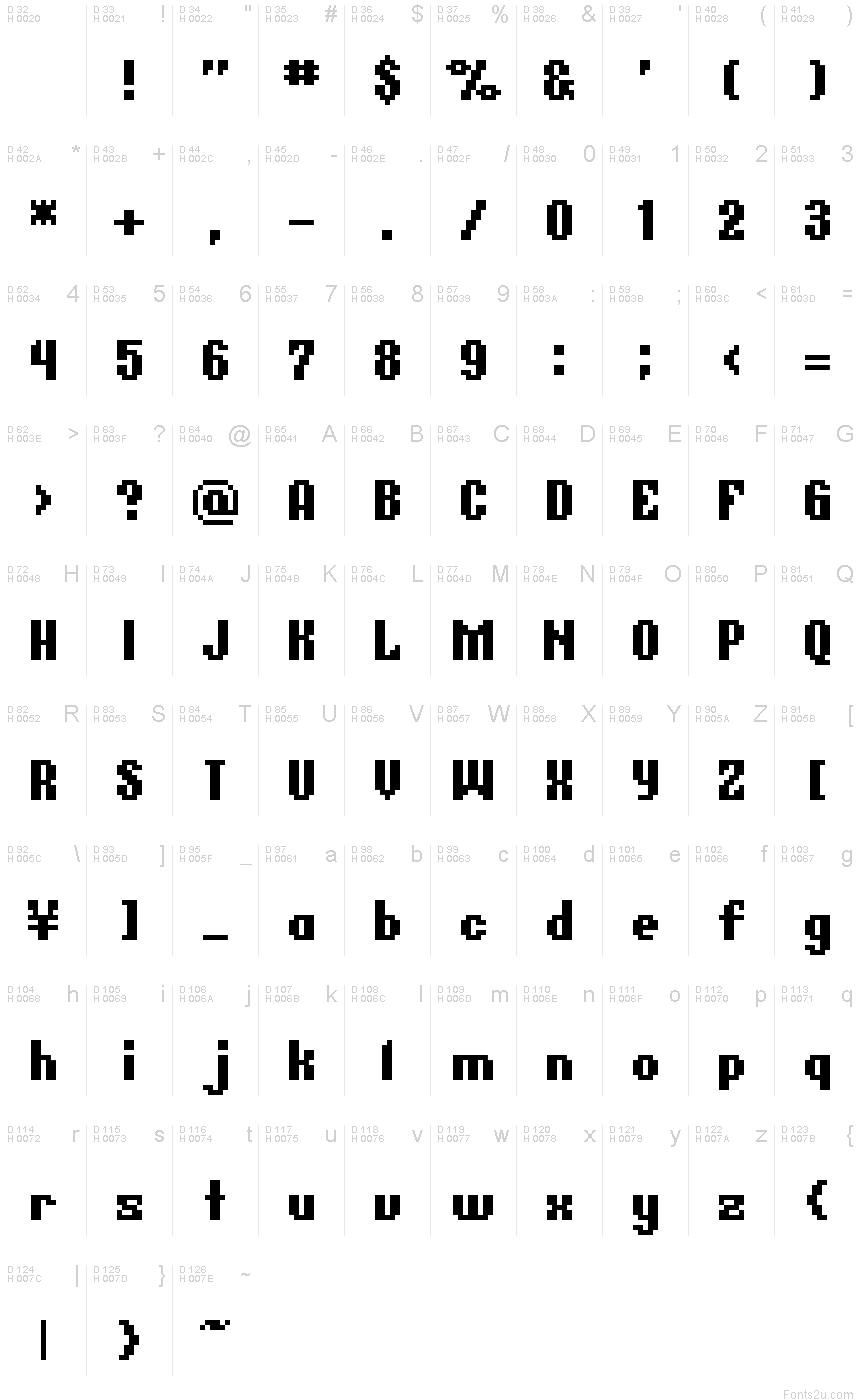
BM germar A12
BM germar A12 font by BitmapMania / COOZ is a free pixelated bitmap typeface in the BM germar family, drawn with chunky, no-nonsense squares that read like an old-school CRT menu. Its sturdy weight and tidy spacing keep words legible even when everything’s snapped to a strict grid.
Using BM germar A12, you get that crunchy 8/16‑bit attitude without the usual blur—great for retro game UI, arcade logos, pixel-art posters, synthwave covers, techy zines, stream overlays, and sticker packs. Set it at whole-number sizes to keep edges crisp, and pair this free font with a clean sans for longer copy.